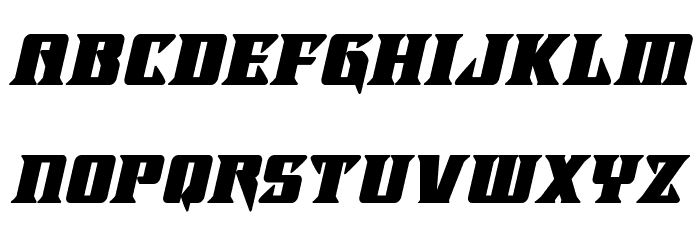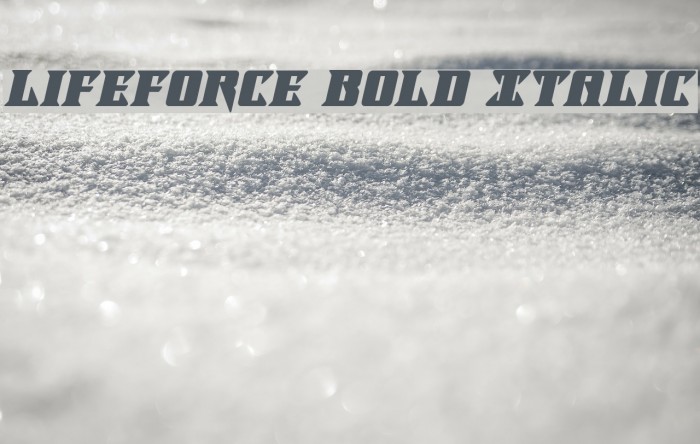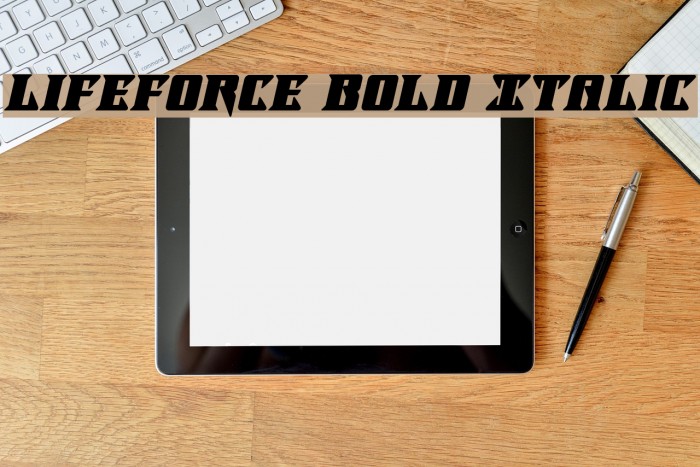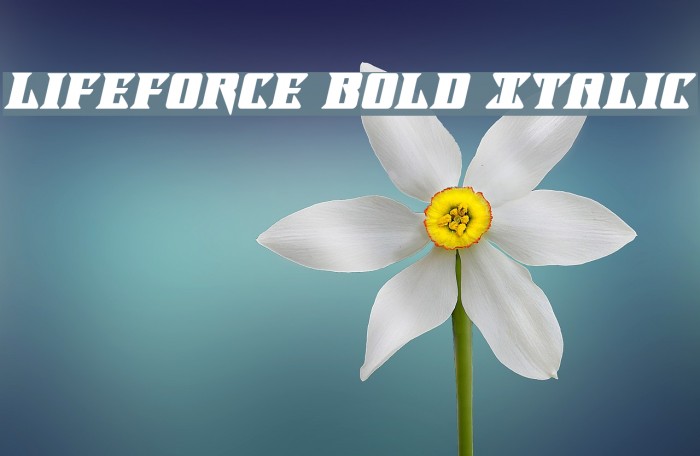
Lifeforce Bold Italic Font
This font features a bold and italicized style with a dynamic and aggressive appearance. The characters are sharply angled, giving them a sense of movement and energy. The strokes are thick and consistent, contributing to a strong visual impact. The uppercase and lowercase letters maintain a cohesive design, with the uppercase letters displaying a slightly more pronounced slant. The numbers and special characters are designed to match the bold and italicized theme, ensuring uniformity across all glyphs. This font is ideal for projects that require a bold statement or a modern, edgy look.
A bold, italicized font with sharp angles and a dynamic, aggressive style.
- Proposed Projects: Suitable for sports branding, action movie posters, video game titles, and dynamic advertising campaigns.